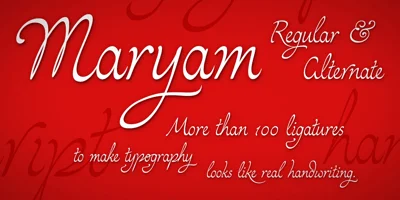
Maryam Font
Maryam Font is ideal for elegant branding, feminine products, beauty brands, wedding invitations, luxury stationery, sophisticated packaging, and graceful design applications. This refined typeface brings timeless femininity and elegant charm to distinguished design projects.
Maryam Font is exciting because it embodies graceful sophistication with its elegant letterforms that convey feminine beauty and refined charm while maintaining exceptional readability and timeless appeal across luxury and lifestyle applications.
The Maryam Font family includes regular and italic styles with elegant character variations and sophisticated styling elements. This graceful collection provides designers with refined options for creating memorable and elegantly feminine brand experiences.
Maryam Font provides access to an elegantly crafted typeface that captures the essence of timeless femininity and sophisticated grace. This refined font features beautifully designed letterforms with elegant details that create immediate associations with feminine beauty, graceful sophistication, and timeless charm. The typeface showcases refined proportions and elegant aesthetics that enhance feminine communications while maintaining professional functionality and broad appeal. Its graceful character makes it particularly suitable for beauty brands and luxury companies that require typography capable of conveying feminine elegance, sophisticated beauty, and timeless grace. Maryam Font delivers exceptional elegant impact for applications where masculine or neutral fonts feel inappropriate for feminine-focused communications and luxury lifestyle branding. The font's feminine appeal and elegant aesthetic make it an essential tool for designers working on projects that require typographic expression of graceful beauty, feminine sophistication, and elegant charm that resonates with audiences seeking authentic feminine experiences and refined visual communication.